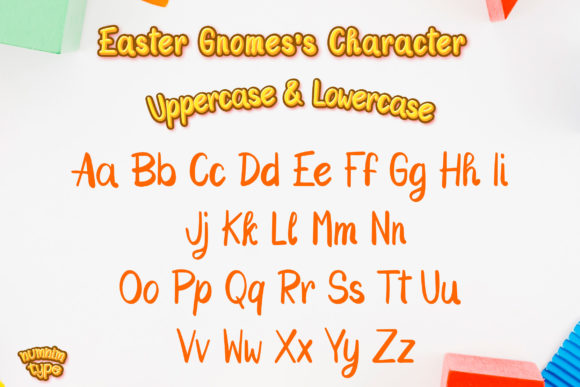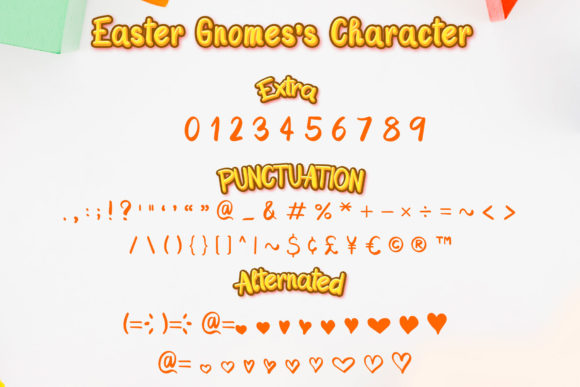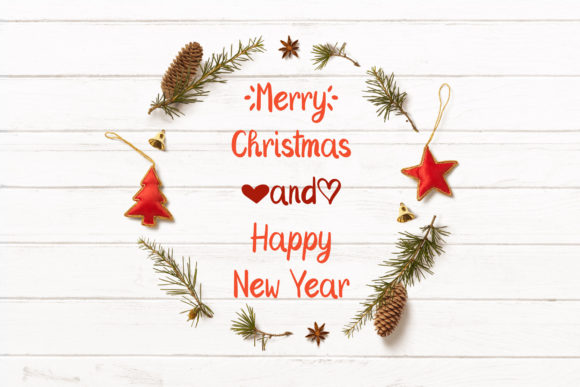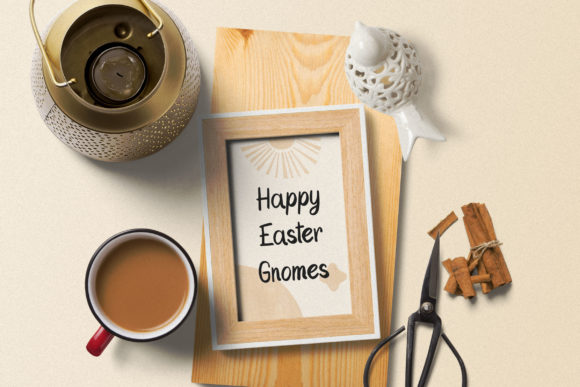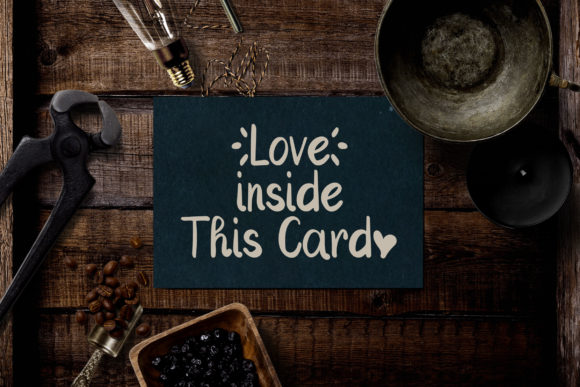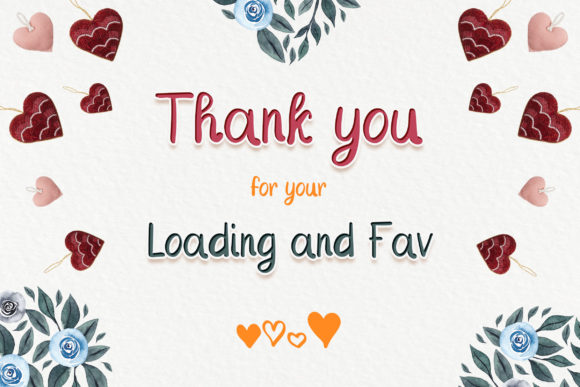
Spring into Creativity with Easter Gnomes Font
Who among us hasn’t felt the excitement of rummaging through a stash of colorful markers and scraps of paper as a child, waiting for the perfect moment to unleash our creativity? As designers, we’ve all had those moments where we stumble upon a font that captures the essence of our imagination, and we just can’t help but fall in love. For me, that moment came when I discovered the Easter Gnomes Font – a joyful and friendly handwritten font that features cute doodle elements that bring a smile to my face every time I see it.
Designed to bring a touch of whimsy and playfulness to your designs, the Easter Gnomes Font is perfect for creating lovely designs related to school or children. Whether you’re crafting a birthday invitation, a graduation announcement, or a simple greeting card, this font is sure to add a personal touch that will make your creations stand out. As a valuable addition to any designer’s toolkit, the Easter Gnomes Font is a must-have for anyone looking to inject a bit of fun and personality into their work.
- Unique Characteristics: Whimsical, hand-drawn style with intricate details and textures
Easter Gnomes Font Review
I recently had the chance to work with the Easter Gnomes Font, and I must say it’s a unique addition to any design project. Here’s my honest review.
- Playful and whimsical feel, perfect for Easter-themed designs
- Clear and easy to read, even at smaller font sizes
- Includes a variety of characters, including numbers and punctuation
- Not suitable for formal or professional designs
- Limited to a single style (no bold, italic, or condensed versions)
- May be too cute or childish for some audiences
Overall, I think the Easter Gnomes Font is a fun and creative choice for designs that need a playful touch. However, it’s not suitable for every project, and designers should be aware of its limitations. With some careful consideration, it can be a great addition to a design’s personality.
Use the Easter Gnomes Font in conjunction with Easter-themed graphics and images for a cohesive look.
Experiment with different font sizes and colors to create visual interest.
Use the font to create Easter-themed titles, headings, and body text.
Easter cards and invitations
Easter-themed social media graphics
Easter party decorations and signage
Easter-themed printables and templates
Alternatives to Easter Gnomes Font
Great Vibes is a modern, elegant script font that can be used for a variety of purposes, including invitations, greeting cards, and logos. It’s perfect for designers who want a whimsical feel without the Easter theme.
Comparison to Easter Gnomes Font: Great Vibes has a more refined and sophisticated look, making it suitable for formal events and professional designs. It lacks the playful, rustic feel of Easter Gnomes Font, but offers a unique and eye-catching alternative.
Pacifico is a beautiful, handwritten font that evokes a sense of relaxation and tranquility. It’s ideal for designers who want to create a calming atmosphere, such as for spa or wellness brands.
Comparison to Easter Gnomes Font: Pacifico has a softer, more delicate look compared to Easter Gnomes Font, making it perfect for designs that require a soothing and peaceful tone. While it lacks the whimsy of Easter Gnomes Font, it offers a unique and elegant alternative.
Carolyna Pro is a modern, elegant script font that’s perfect for designers who want a sophisticated and luxurious look. It’s ideal for high-end brands, luxury events, and elegant invitations.